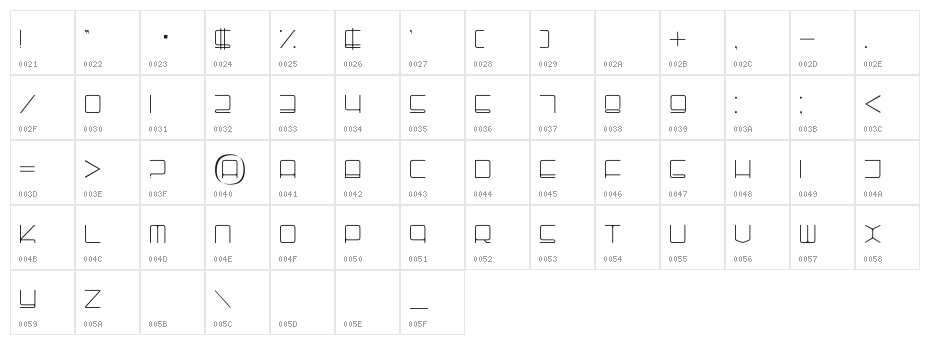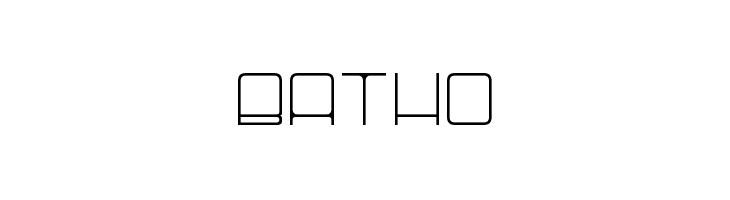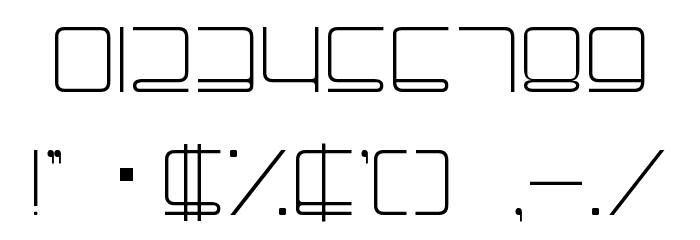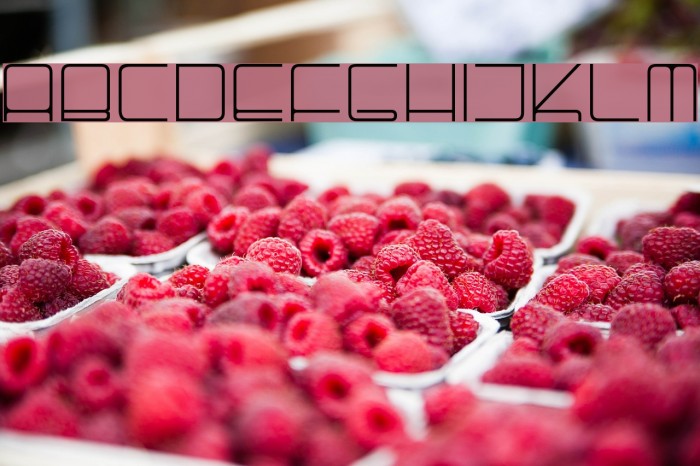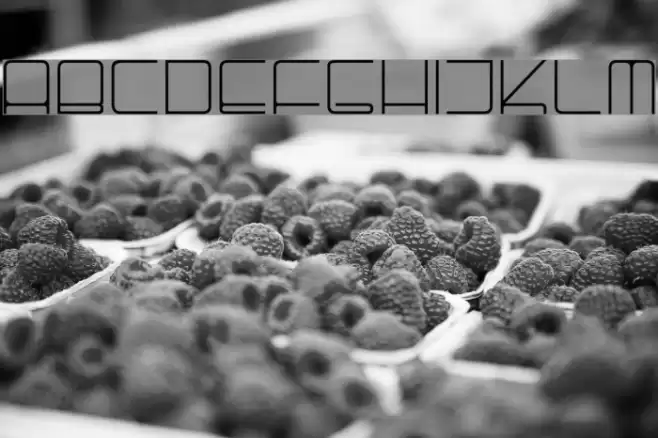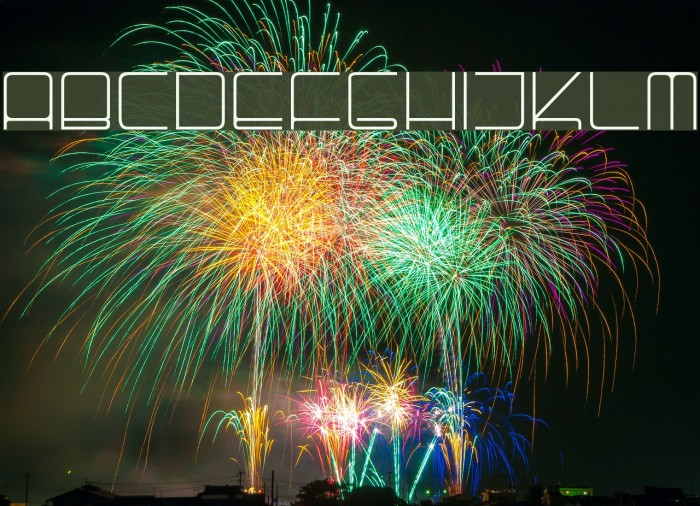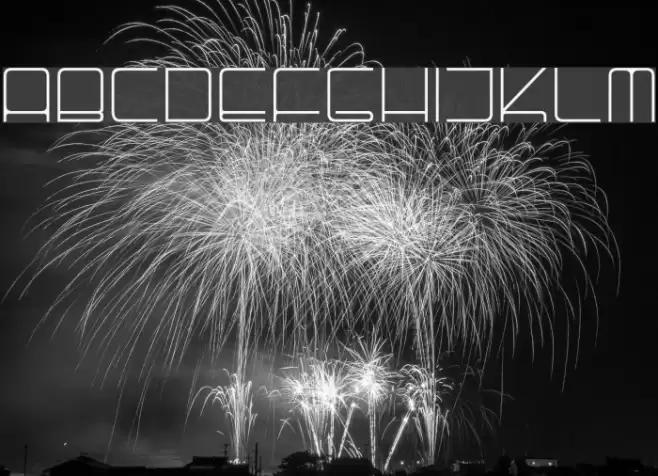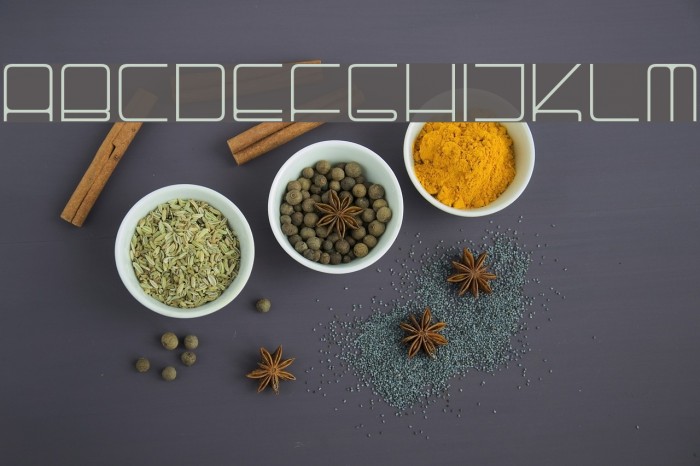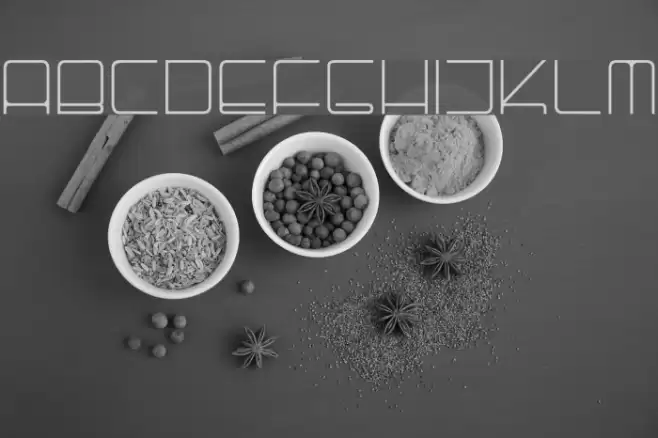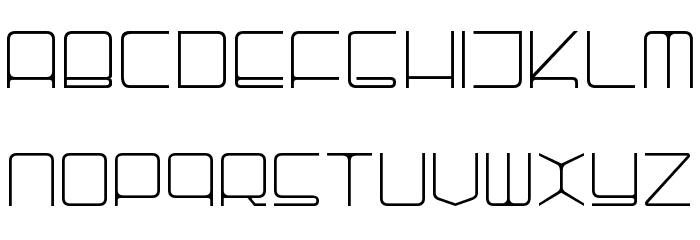
batho Font
batho Description
This font features a modern, geometric design with a futuristic feel. The characters are constructed with thin, uniform lines that create a sense of precision and clarity. The uppercase and lowercase letters maintain a consistent height, contributing to a clean and organized appearance. The numerals and special characters follow the same design principles, ensuring a cohesive look across all glyphs. The font's minimalistic approach makes it suitable for contemporary design projects, where a sleek and sophisticated aesthetic is desired.
| Overall Style | Futuristic, Minimalist |
| Proposed Projects | Ideal for technology branding, modern posters, futuristic interfaces, and minimalist graphic design. |